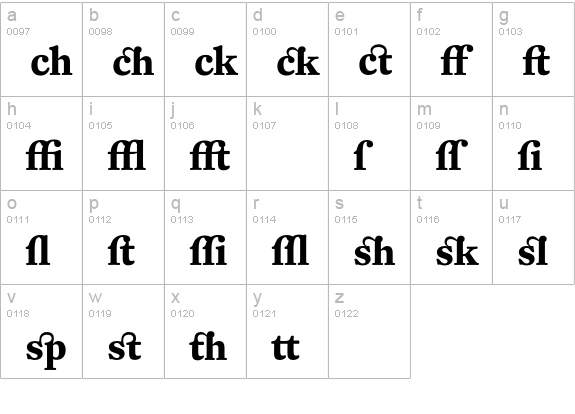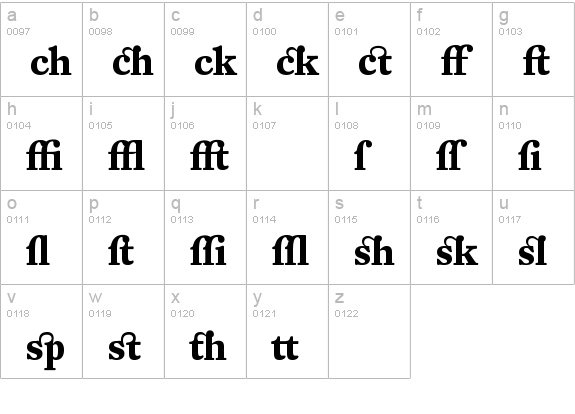
DTLFleischmannT-AltBold is a striking and versatile font that exudes a sense of modernity and sophistication. With its bold and distinctive letterforms, this typeface is perfect for making a bold statement in any design project. Whether used for headlines, logos, or branding materials, DTLFleischmannT-AltBold commands attention and leaves a lasting impression. The clean lines and sharp angles of DTLFleischmannT-AltBold give it a contemporary edge while still maintaining a sense of elegance and professionalism. Its unique design sets it apart from other fonts, making it a standout choice for those looking to add a touch of originality to their work. Best of all, DTLFleischmannT-AltBold is available for free download at FontsMarket.com, making it easily accessible to designers and creatives looking to elevate their projects with a high-quality typeface. Don't miss out on the opportunity to enhance your designs with this exceptional font - download DTLFleischmannT-AltBold today and let your creativity shine!